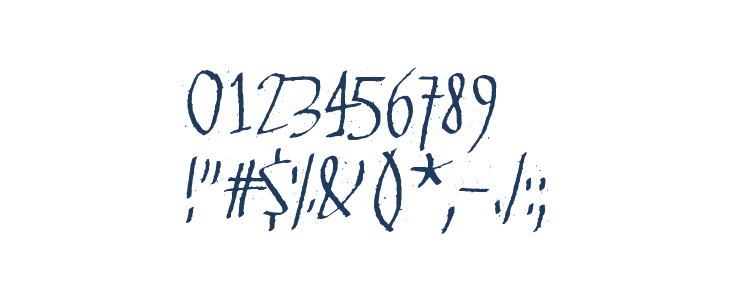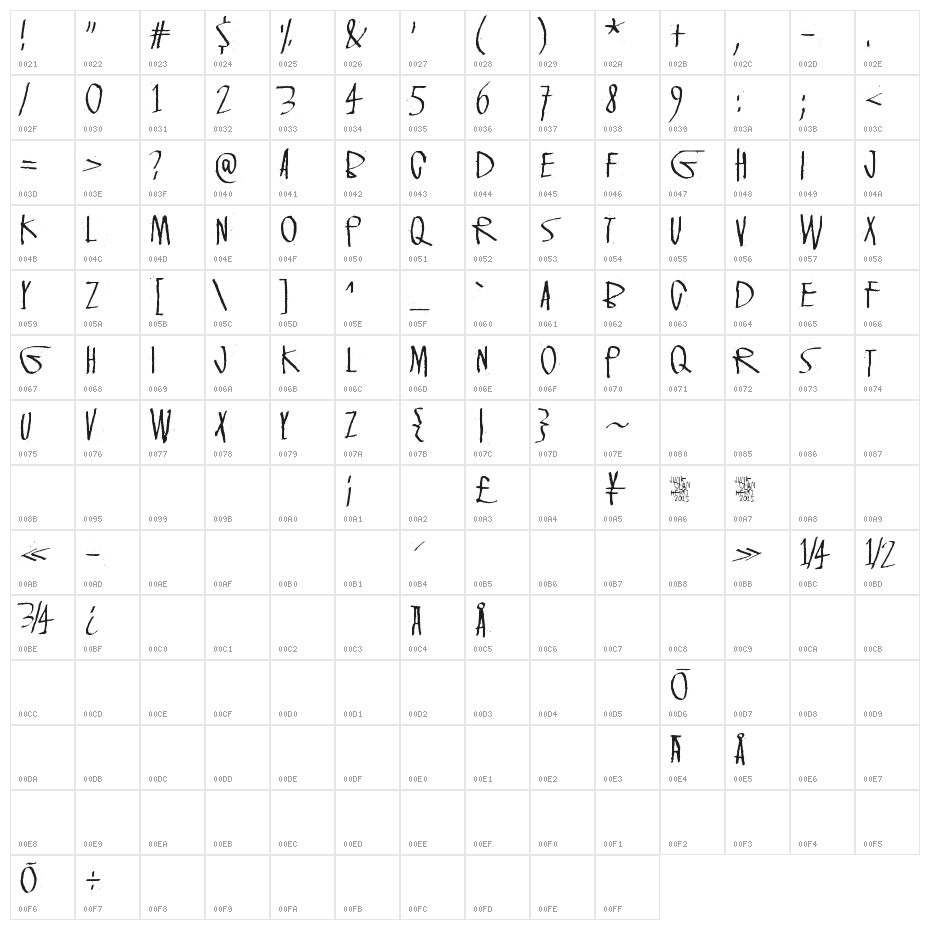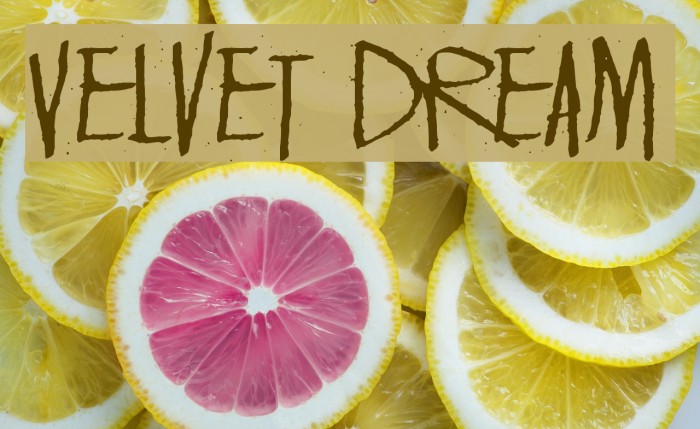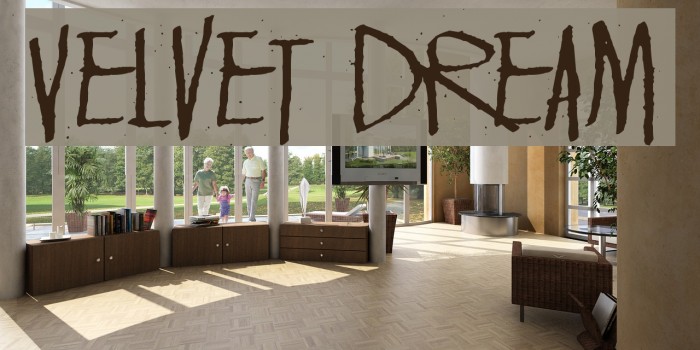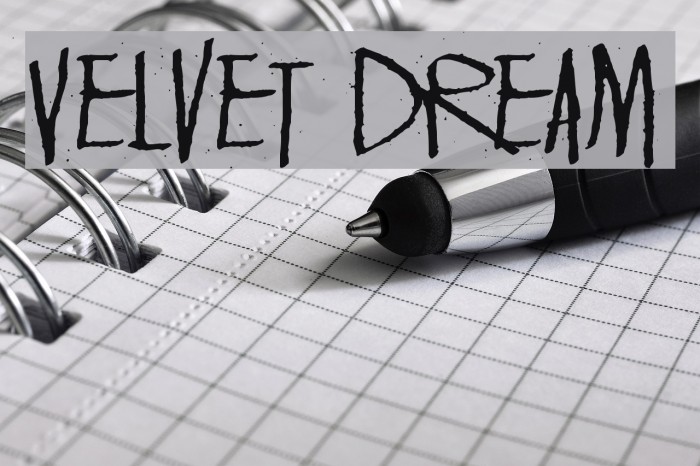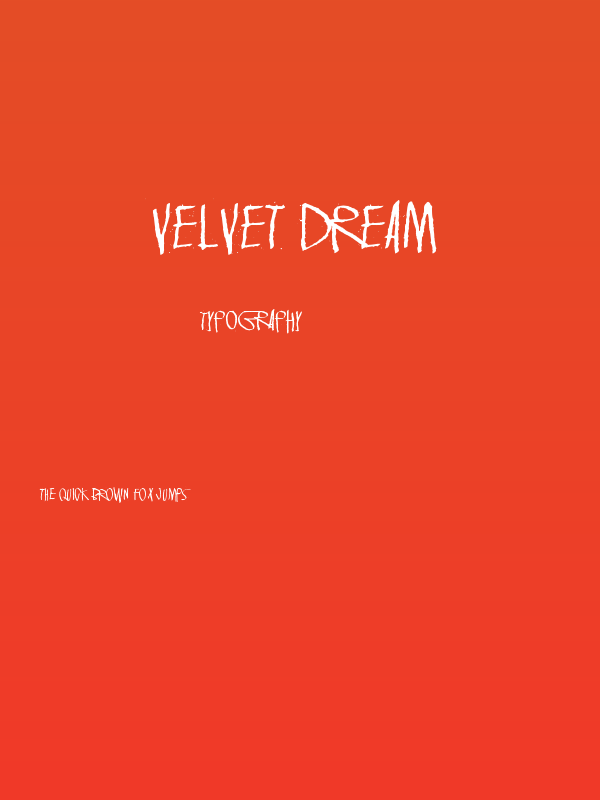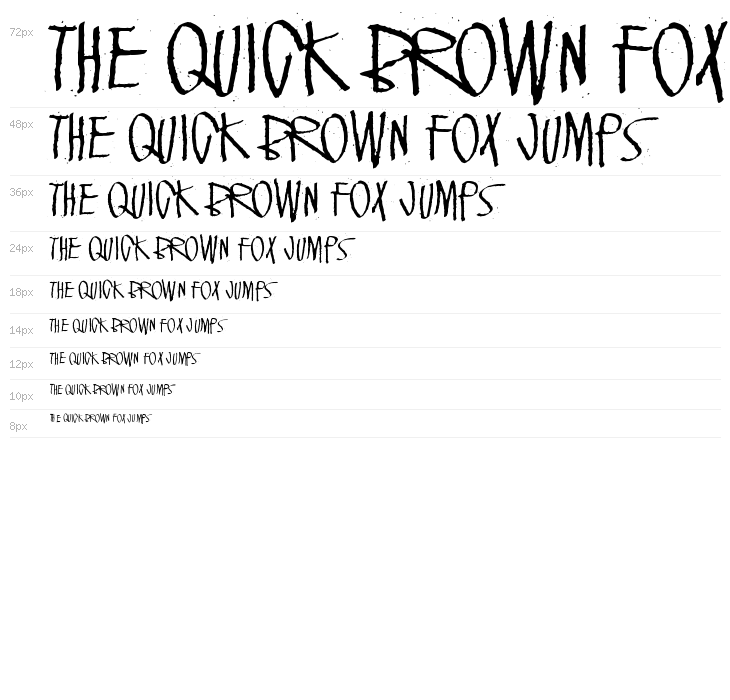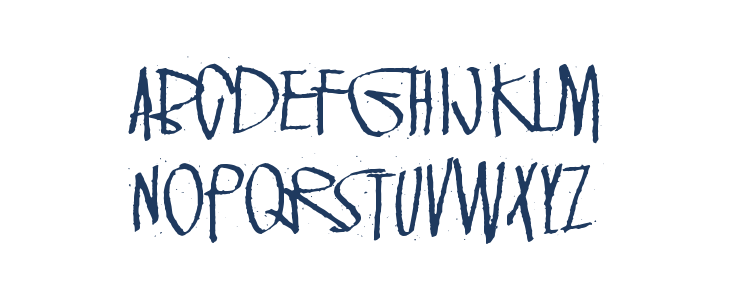
Velvet Dream Font
Velvet Dream Description
This font features a unique, hand-drawn style with irregular, jagged edges that give it a raw and artistic feel. The uppercase and lowercase letters maintain a consistent height, creating a cohesive look despite their uneven strokes. The numbers and special characters follow the same aesthetic, adding to the font's overall charm. Its bold, expressive lines make it stand out, while the slightly condensed width allows for efficient use of space. The font's high contrast between thick and thin strokes enhances its dramatic appearance, making it ideal for creative projects.
| Use Case | Logos, Posters, Creative projects |
| Proposed Projects | Perfect for artistic projects, album covers, posters, and branding that requires a bold, creative touch. |